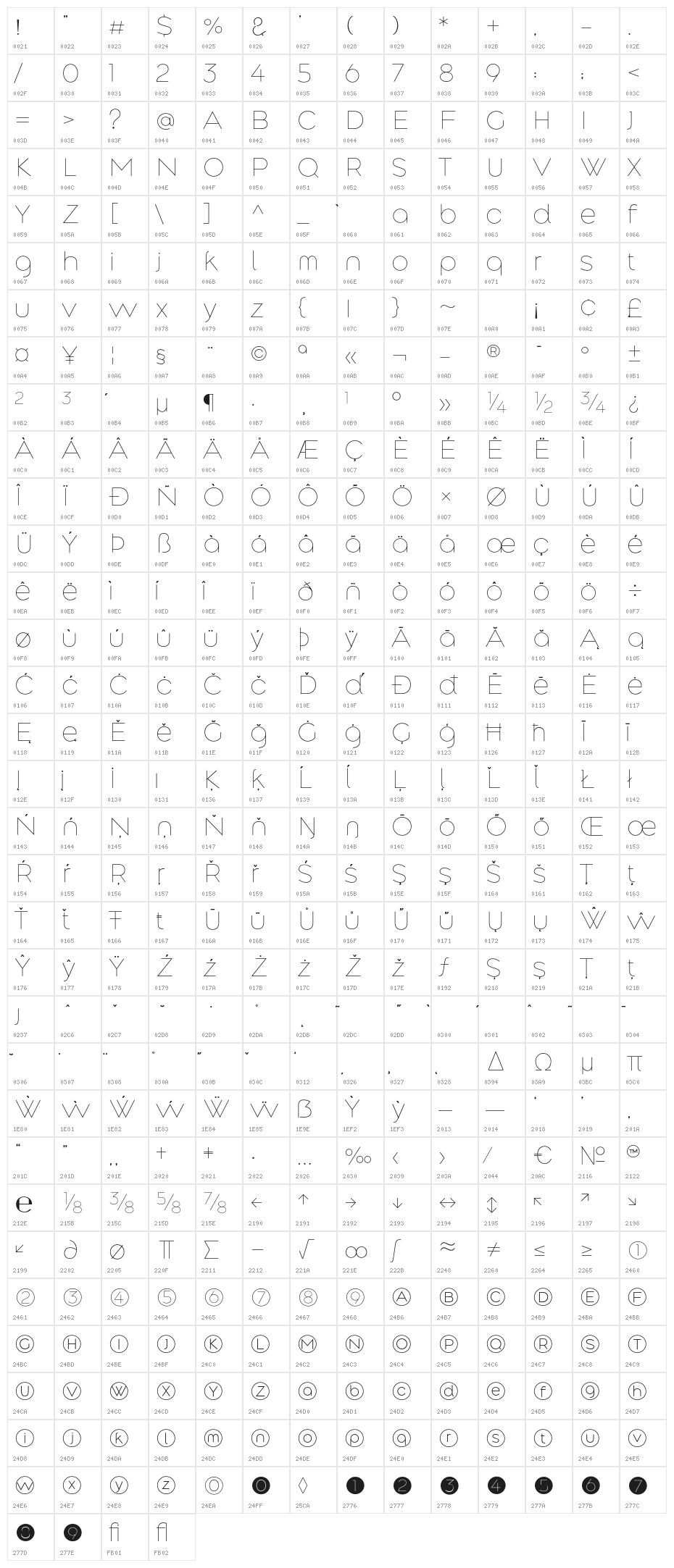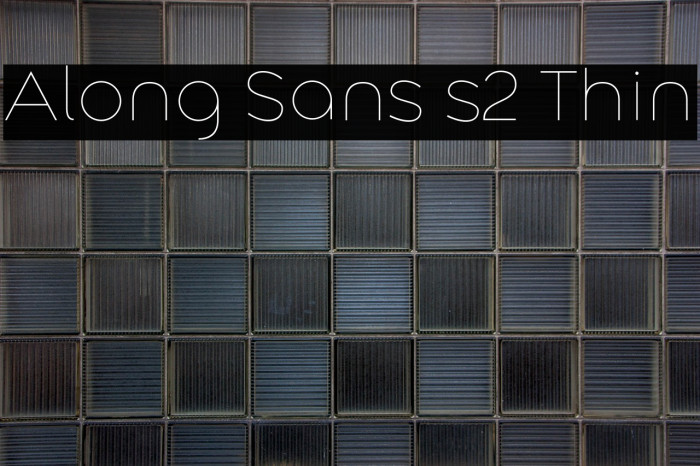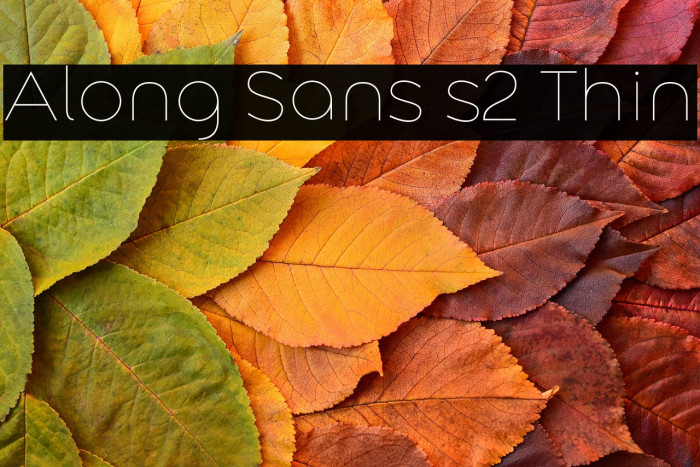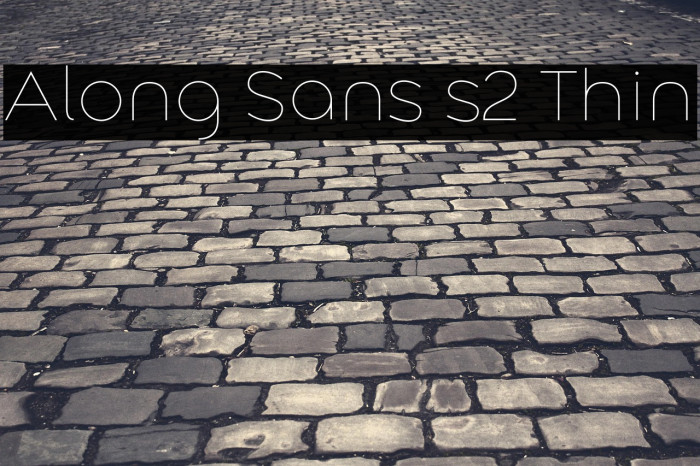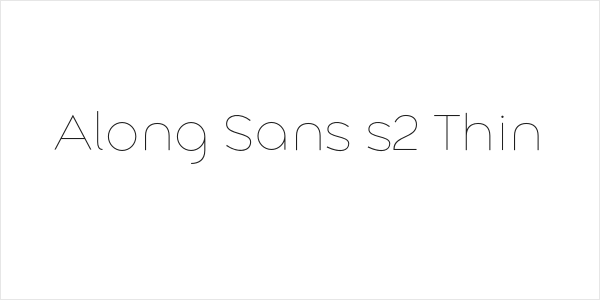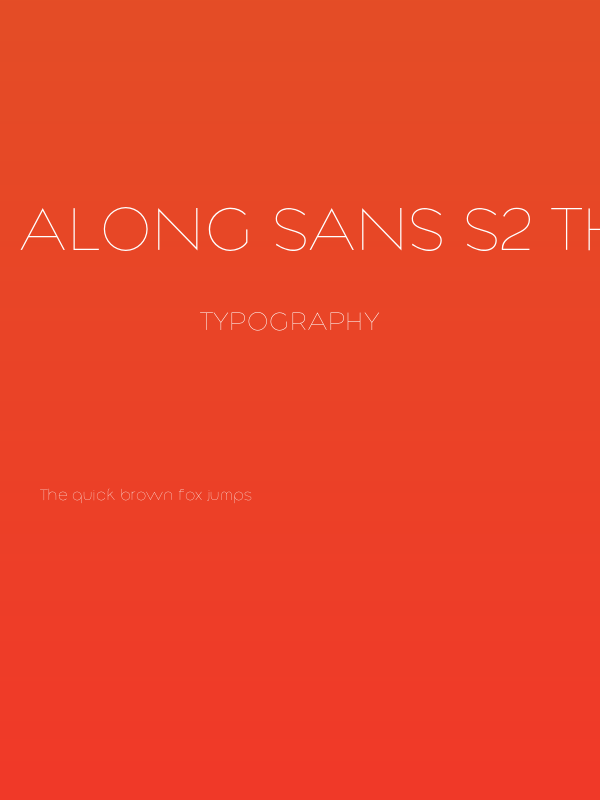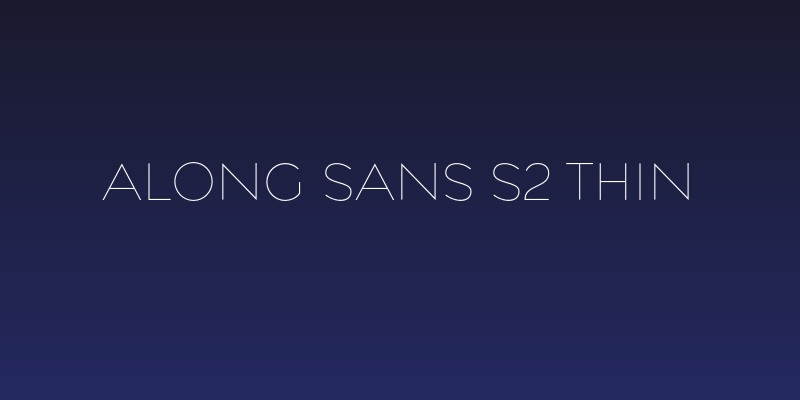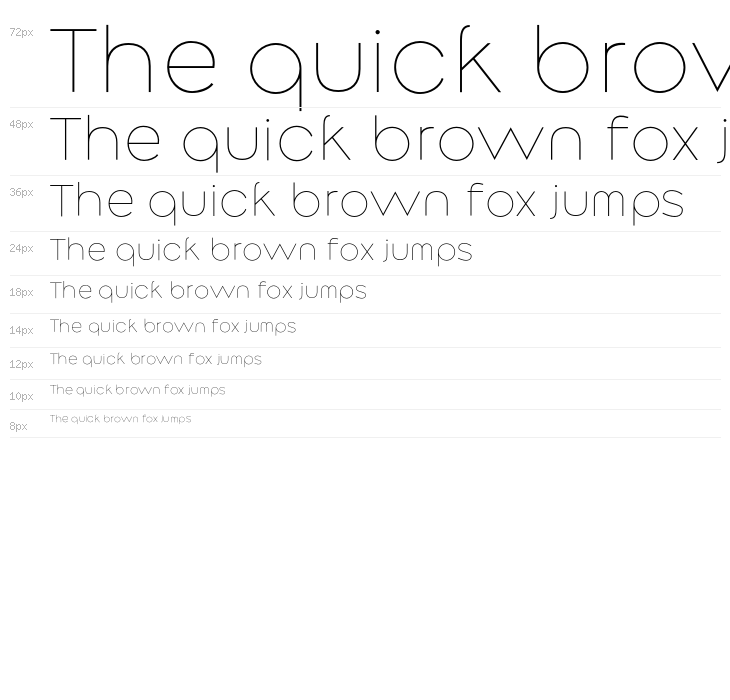
Along Sans s2 Thin Font
Along Sans s2 Thin Description
This font features a sleek and minimalist design, characterized by its thin, uniform lines and geometric shapes. The uppercase and lowercase letters maintain a consistent height and width, creating a harmonious and balanced appearance. The numerals are clear and legible, with a modern aesthetic that complements the overall style. Special characters are designed with the same thin lines, ensuring consistency across all glyphs. This font's simplicity and elegance make it suitable for a wide range of applications, from digital interfaces to print media.
| Proposed Projects | Ideal for modern branding, digital interfaces, minimalist posters, and clean editorial layouts. |